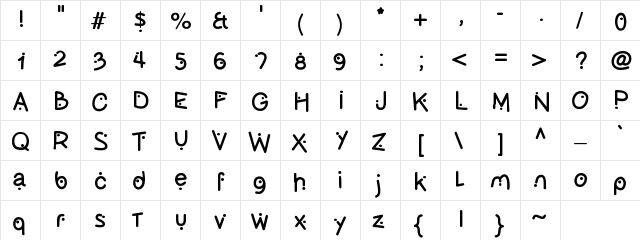
Olives Medium Font Preview
Olives Medium
Olives Medium Font Details
Design Context for Olives Typeface
Olives is a composed and adaptable typeface that performs quietly and consistently across a wide range of design contexts.